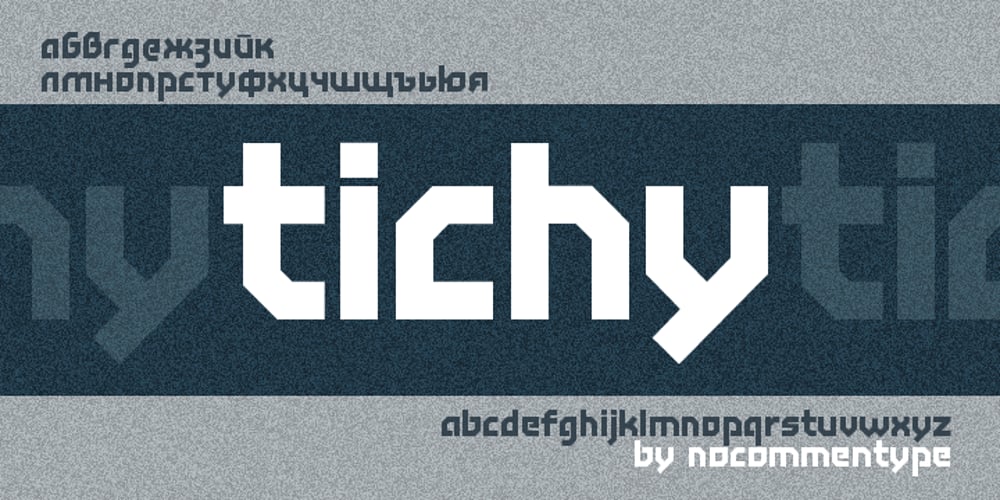
Tichy Font Family was designed by Asen Tiberiy Baramov and published by NoCommenType. Tichy contains 1 styles and family package options. The “Tichy” typeface is intended for use in titles, headlines and in short text blocks, like citates. However, the typeface is legible even in larger text blocks. It’s strong appeal allows the typeface’s usage mixed with other graphic elements of the layout without compromising it’s readability and it’s presence. The typeface’s simple initial module (double braked at 135 degrees straight line), the strict rules of forming the letters lead to an unique typeface – masculine, strong and still legible. The Cyrillic glyphs are influenced by the work of the great Bulgarian typographers Boris Angelushev, Vassil Yonchev and Alexander Poplilov, who developed Cyrillic further in 60-s and 70-s of the XX century. Western, East European, Cyrillic, Baltic and Turkish codepages are supported. The font file contains all the basic ligatures, alternate glyphs and kern pairs. It can be used both on Windows and MacOS based computers. The history of “Tichy” typeface began many years ago with a project for logotype design for a small company. It was a kind of designer’s game to try making some letters just using one single module. Development of the other glyphs of the latin alphabet was for many years a mandatory exercise for the young colleagues in our studio. Suddenly we realized that this project matured and creation of a new typeface started.